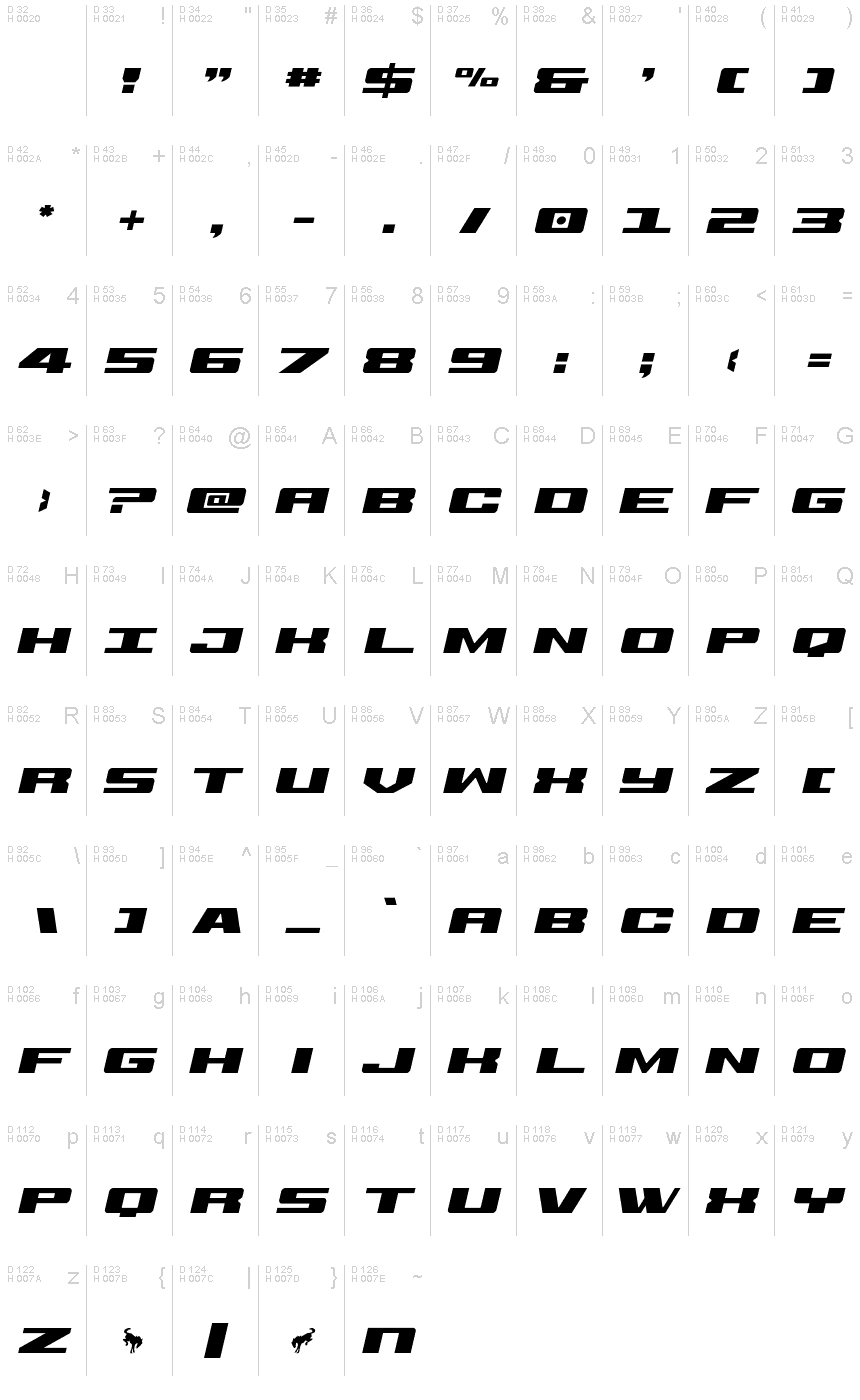
Buckin' Bronc Title Italic
Buckin' Bronc Title Italic, from the robust Buckin' Bronc family crafted by Iconian Fonts, is a display font that commands attention. With its techno style, extra-bold weight, and extra-expanded width, this typeface gallops off the page with an air of modernity and strength. Perfect for headlines, posters, and any project requiring a dash of digital dynamism, Buckin' Bronc Title Italic is poised to elevate your designs with its unmistakable presence.
Embrace the power of this font and let your creative work stand tall with a contemporary western twist.